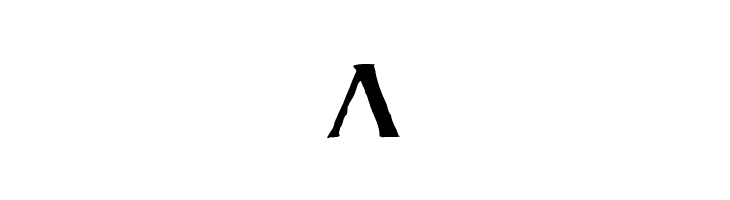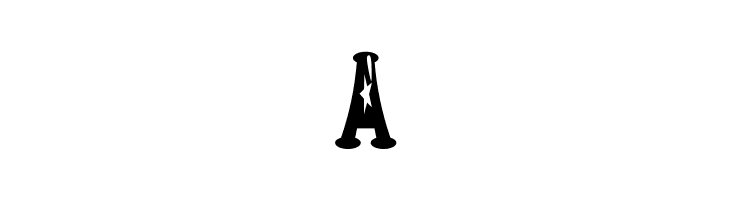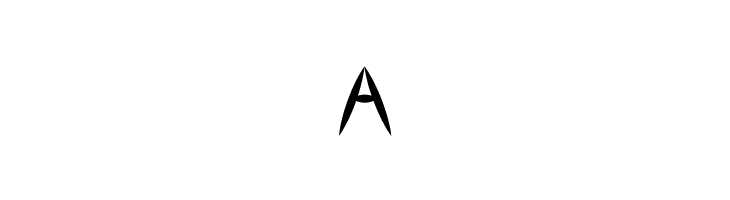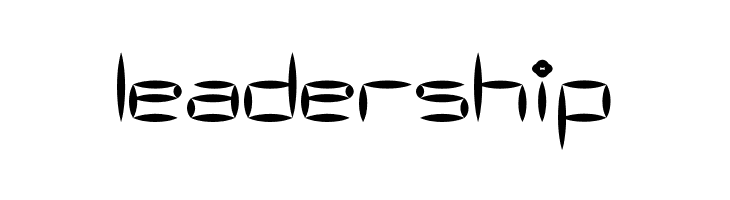
A bold, angular font inspired by ancient runic alphabets with a modern twist.
A sharp, angular font with a modern, edgy style.
A modern, dot-based font with a digital and playful aesthetic.
A dynamic, expressive handwritten font with fluid, continuous strokes.
A whimsical, hand-drawn style with a vintage flair.
A vintage-inspired font with artistic, hand-drawn strokes and playful curves.
An ornate, medieval-style decorative font with intricate flourishes.
A playful, bold font with rounded edges and a whimsical style.
A dynamic and flowing script font with elegant, interconnected strokes.
A bold, distressed font with a cut-out, grunge style.
A bold, distressed font with a grunge, cut-out style.
A bold, geometric font with a modern, condensed style.
A modern, italicized font with bold strokes and a sleek, condensed design.
A modern, geometric font with sharp, angular lines and a futuristic style.
A playful font composed of star and circle shapes, perfect for whimsical designs.
Casual handwritten script font.
A bold, brush-style font with expressive, dynamic strokes.
An elegant, decorative script font with intricate uppercase and graceful lowercase letters.
Abstract, tech-themed dingbat font with bold, decorative symbols.
A futuristic, geometric font with sharp, angular shapes.
A bold, decorative font with star cutouts in each character, perfect for eye-catching designs.
A bold, decorative serif font with a vintage and playful style.
A bold, playful font with irregular, whimsical shapes and a decorative style.
A bold, playful font with star-like cutouts and dynamic shapes.
A bold, decorative serif font with star-like cutouts for a playful touch.
A bold, decorative font with star-shaped cutouts and a modern, playful style.
A bold, liquid-like font with a dynamic and eye-catching style.